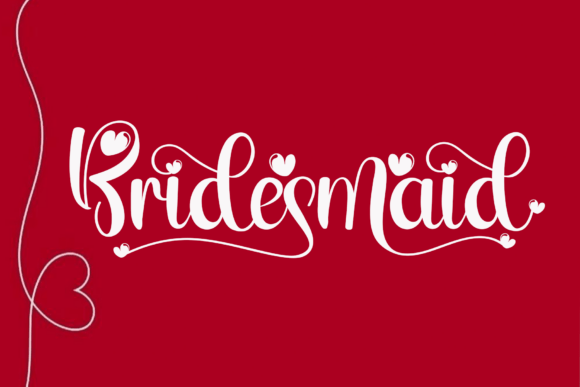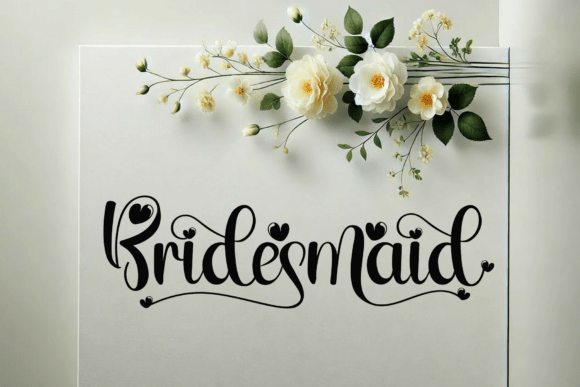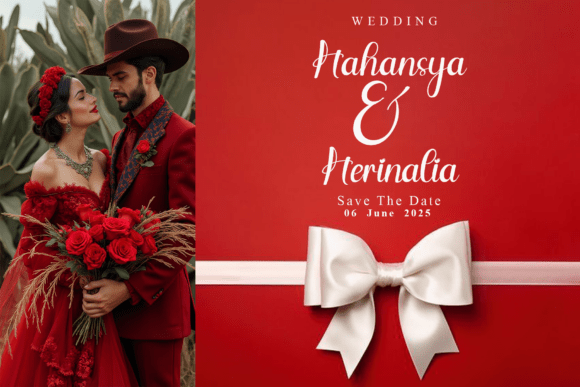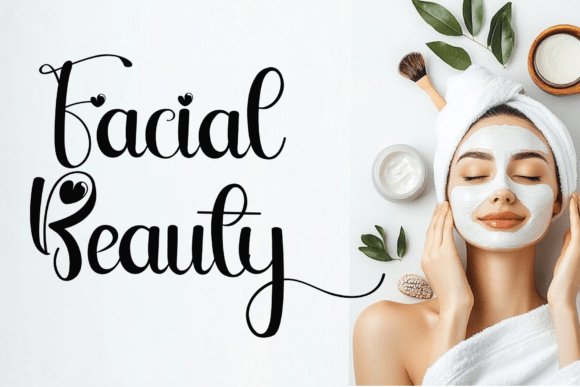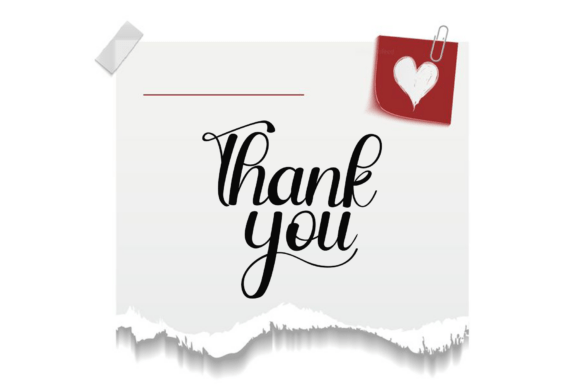
Introducing Faithful Font: The Sweet and Cursive Handwritten Font for Your Design Needs
Are you looking for a font that can add a touch of elegance and romance to your designs? Look no further than Faithful Font, a sweet and cursive handwritten font that is perfect for a variety of design projects. With its gentle and flowing curves, Faithful Font is sure to make your designs stand out and leave a lasting impression.
What Makes Faithful Font Special?
Faithful Font is a unique and beautiful font that is designed to add a joyful and romantic touch to your designs. Its cursive and handwritten style gives it a personal and intimate feel, making it perfect for projects that require a touch of warmth and personality. Whether you’re designing a logo, creating a wedding invitation, or crafting a marketing promotion, Faithful Font is the perfect choice.
Faithful Font is a versatile font that can be used for a wide range of design projects, including:
- Branding: Use Faithful Font to create a unique and memorable brand identity that sets you apart from the competition.
- Logo Design: Create a stunning logo that showcases your brand’s personality and style with Faithful Font.
- Wedding Designs: Add a touch of romance and elegance to your wedding designs, including invitations, programs, and decorations.
- Greeting Cards: Create beautiful and heartfelt greeting cards for special occasions, such as birthdays, anniversaries, and holidays.
- Fashion and Lookbook: Use Faithful Font to create a stylish and sophisticated lookbook or fashion catalog that showcases your designs.
- Marketing Promotion: Add a touch of elegance and sophistication to your marketing promotions, including brochures, flyers, and social media graphics.
Why Choose Faithful Font?
There are many reasons why Faithful Font is the perfect choice for your design needs. Here are just a few:
- Elegant and Casual: Faithful Font is both elegant and casual, making it perfect for designs that require a touch of sophistication and personality.
- Unique and Memorable: Faithful Font is a unique and memorable font that will help your designs stand out and leave a lasting impression.
- Easy to Read: Faithful Font is easy to read and understand, making it perfect for designs that require a clear and concise message.
- Versatile: Faithful Font can be used for a wide range of design projects, making it a great addition to any designer’s toolkit.
Tips for Using Faithful Font
Here are a few tips for using Faithful Font in your designs:
- Use it as a headline font: Faithful Font is perfect for headlines and titles, where its elegant and cursive style can really shine.
- Pair it with a sans-serif font: Pair Faithful Font with a sans-serif font, such as Arial or Helvetica, to create a beautiful and contrasting design.
- Experiment with different colors: Faithful Font looks great in a variety of colors, so don’t be afraid to experiment and find the perfect color for your design.
In conclusion, Faithful Font is a beautiful and versatile font that is perfect for a wide range of design projects. Its elegant and cursive style makes it perfect for designs that require a touch of sophistication and personality. Whether you’re a designer, craft, or DIY enthusiast, Faithful Font is a great addition to any design toolkit.